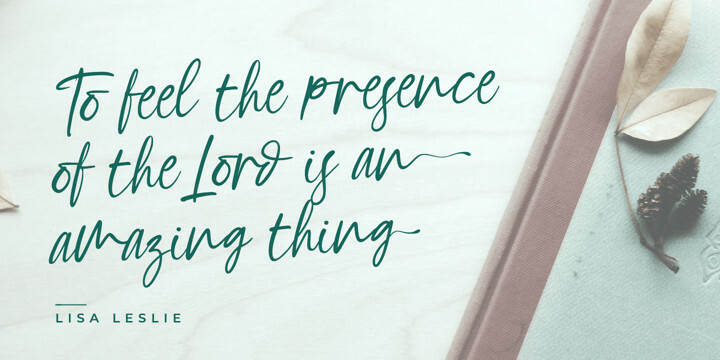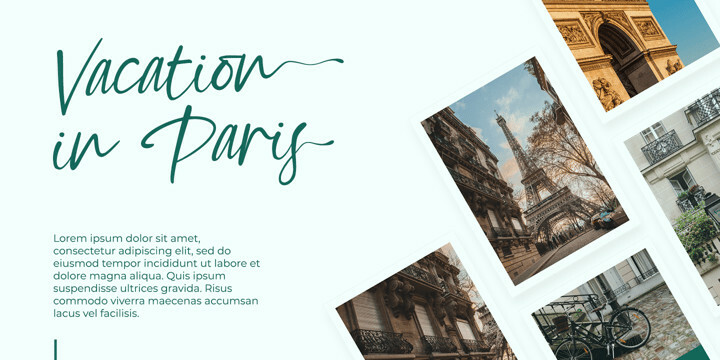
Motion Taste Font
Motion Taste FontMotion Taste is designed elegantly to be easily meld inside your designs. Inspired by the recent trend to brings charming curves and satisfying looks. Discover the beauty in your own imagination while this font gives you a quick kickstart to what it can be. Well suited to invitation, poster designs, branding, logos, and many more.
Our font always includes Multilingual Support to make your branding reach a global audience. Inspire your audience, clients, or guests with this beautiful, statement font.